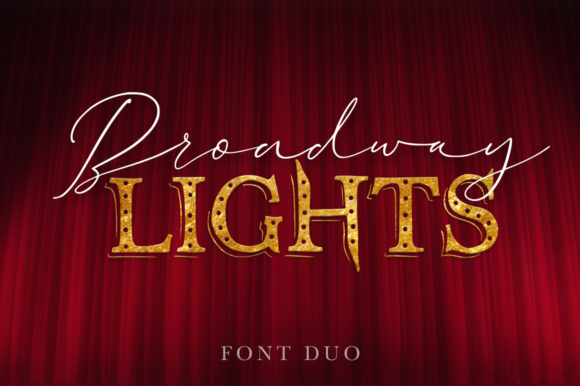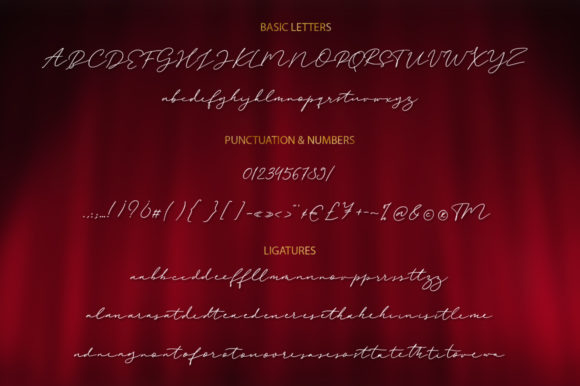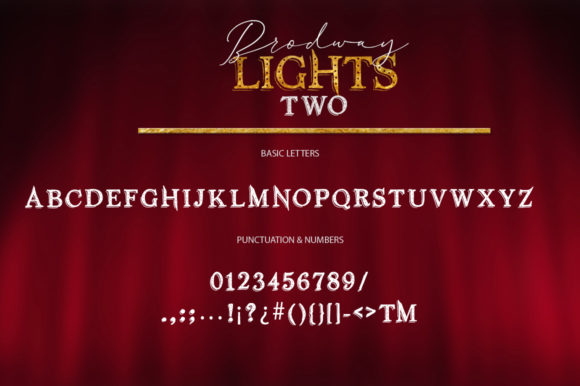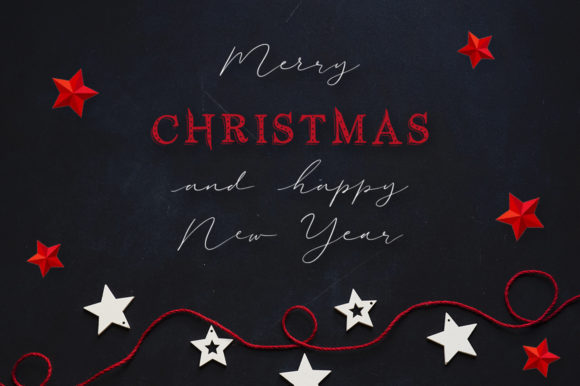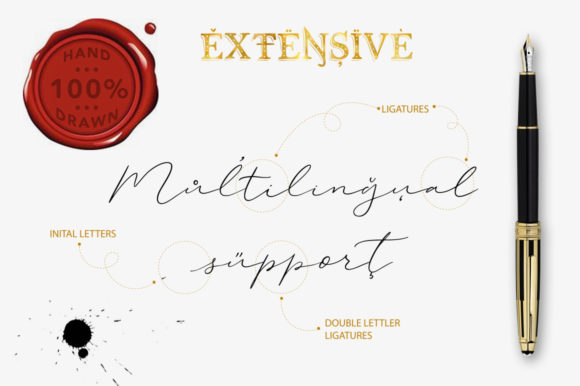
About Broadway Lights Duo Font
The Broadway Lights is a beautiful gentle pair of script and sans serif fonts. The expressive hand drawn fonts with a vintage feeling can be used separately but also can be combined perfectly.
This perfectly combined typographic harmony is perfect for posters, greeting cards, t-shits, branding materials, quotes and any other amazing projects you are working on.